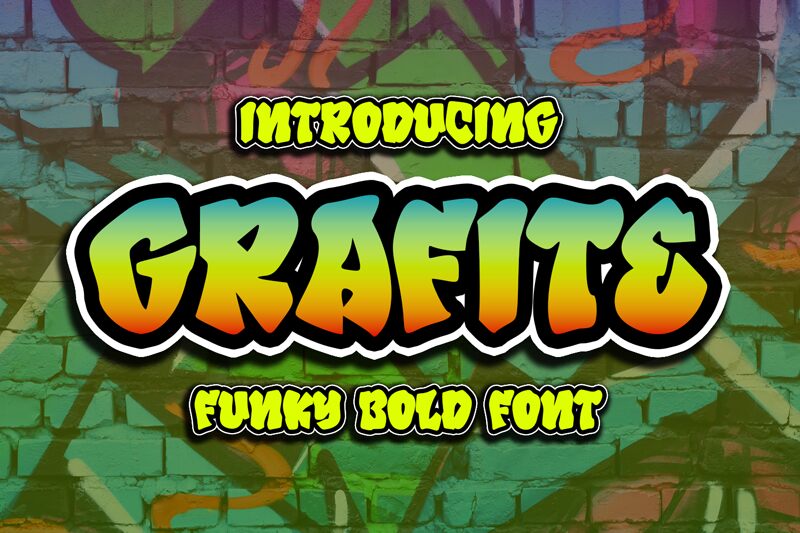
Grafite
Grafite is a bold, funky graffiti font designed by Panggah Laksono. Perfect for urban-inspired projects, Grafite stands out with its street art-style lettering and adds personality to any design. Great for apparel and music album covers, posters, or graffiti murals.